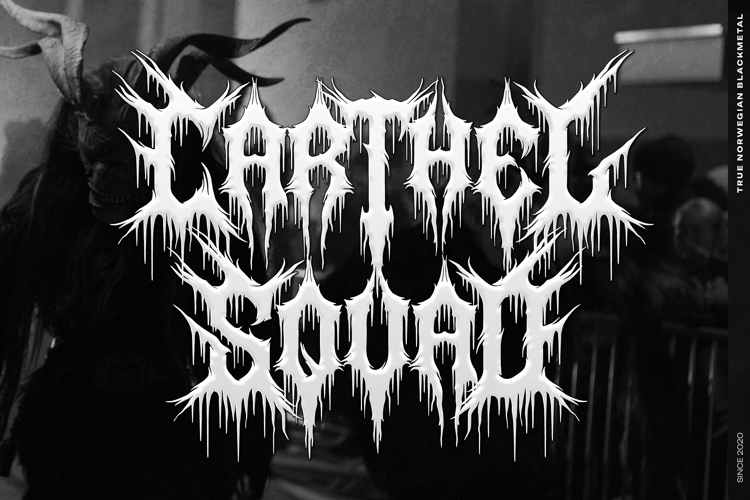
Zen Soul Font
Zen Soul| Death Metal Font product packaging, mugs, quotes, posters, shopping bags, t-shirts, book covers, name card, invitation cards, greeting cards, label, photography, watermark, special events, and all your other lovely projects that need a Black Metal Font taste.